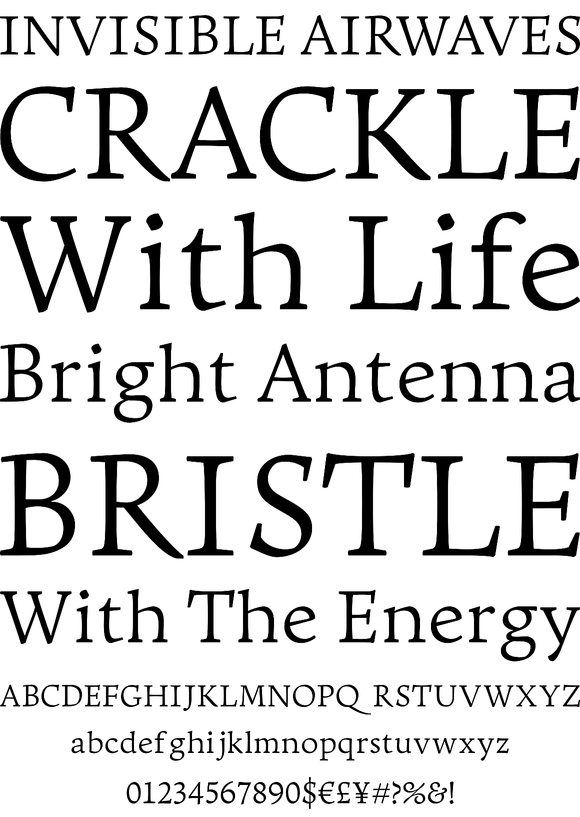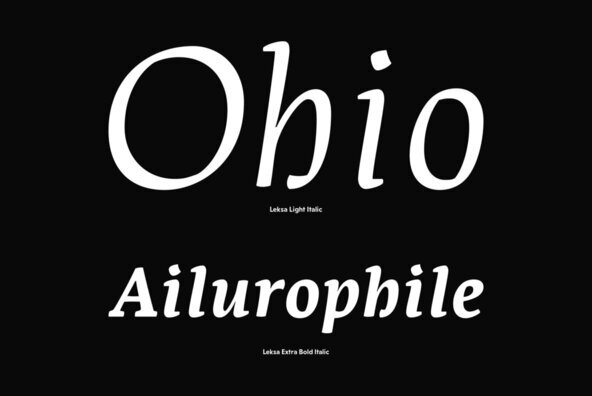
Leksa is an oldstyle, even a bit old-fashioned text family in 12 faces, including six upright and six italic ones, from Light to Black, with both oldstyle and tabular digits and true small caps. The typeface works best in the books of classical style, and looks good in both small and large point sizes. One of the main features of the typeface is its professionally-designed Cyrillic which (together with sans-serif companion Leksa Sans) was awarded for excellence in type design at Modern Cyrillic competition in Superfamilies category. The type family was designed and released by Alexandra Korolkova in 2009. In 2011 the fonts were corrected, technically processed and rebuilt in ParaType.